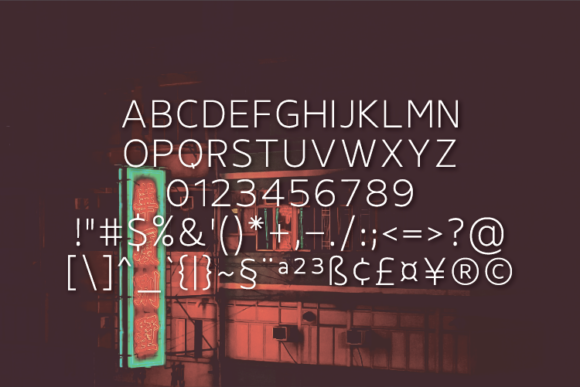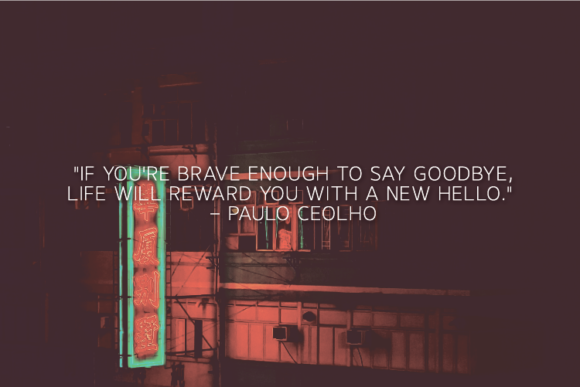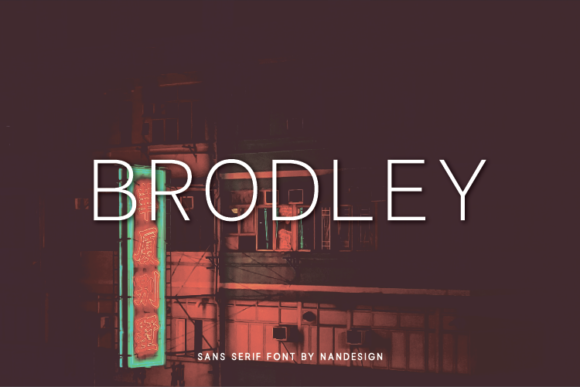
Brodley Font: Elevate Your Designs with a Minimal and Thin Sans Serif
In the world of typography, fonts play a crucial role in making or breaking a design. A well-chosen font can elevate your creative project, making it stand out from the crowd. If you’re a designer or crafter looking for a versatile and stylish font, look no further than Brodley. This minimal and thin lettered sans serif font is perfect for a wide range of projects, from displays and headers to invitations and wedding materials.
What is Brodley Font?
Brodley is a sleek and modern sans serif font characterized by its minimalist and thin lettering style. Its clean lines and simple shapes make it an excellent choice for designers who want to add a touch of sophistication to their work. The font’s versatility is one of its standout features, allowing it to be paired with a vast array of design styles and themes.
Key Features of Brodley Font
• Minimalist Design: Brodley’s thin lettering style gives it a minimalist aesthetic that’s perfect for modern designs.
• Sans Serif: The font’s sans serif design makes it easy to read and versatile for various applications.
• Highly Versatile: Brodley can be used for a wide range of projects, from digital displays to print materials.
• Elegant and Sophisticated: The font’s clean lines and simple shapes give it an elegant and sophisticated feel.
Use Cases for Brodley Font
Brodley’s versatility makes it suitable for a variety of projects, including:
• Displays and Headers: Use Brodley to create eye-catching displays and headers that grab attention.
• Invitations and Save the Dates: Add a touch of elegance to your invitations and save the dates with Brodley’s sophisticated design.
• Weddings and Events: Brodley is perfect for wedding materials, such as wedding invitations, programs, and place cards.
• Branding and Marketing: Use Brodley to create a strong brand identity that exudes modernity and sophistication.
Why Choose Brodley Font?
With so many fonts available, why choose Brodley? Here are a few reasons why Brodley stands out:
• Unique and Distinctive: Brodley’s minimalist design makes it a unique and distinctive font that sets it apart from more traditional fonts.
• Easy to Read: Despite its thin lettering style, Brodley is easy to read, making it perfect for body text and captions.
• Highly Customizable: Brodley can be easily customized to fit your design needs, from adjusting font sizes to changing colors.
Tips for Using Brodley Font
To get the most out of Brodley, here are a few tips:
• Pair with Bold Fonts: Pair Brodley with bold fonts to create visual contrast and add depth to your design.
• Use for Headings: Use Brodley for headings and titles to add a touch of elegance and sophistication.
• Experiment with Colors: Don’t be afraid to experiment with different colors to find the perfect match for your design.
In conclusion, Brodley font is a versatile and stylish sans serif font that’s perfect for designers and crafters looking to elevate their creative projects. Its minimalist design, elegant aesthetic, and high versatility make it an excellent choice for a wide range of applications. Whether you’re working on a display, invitation, wedding material, or branding project, Brodley is sure to make your design stand out.